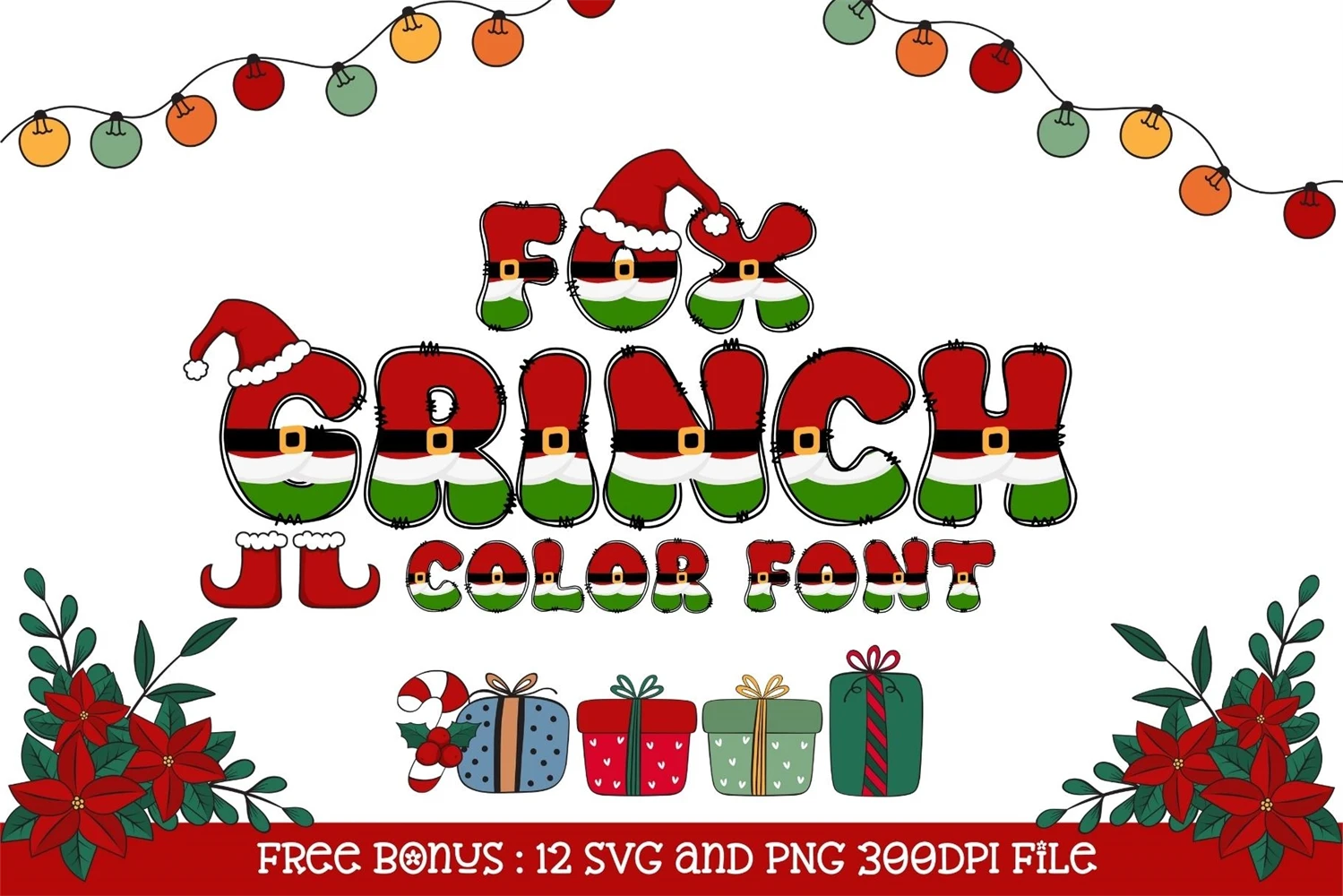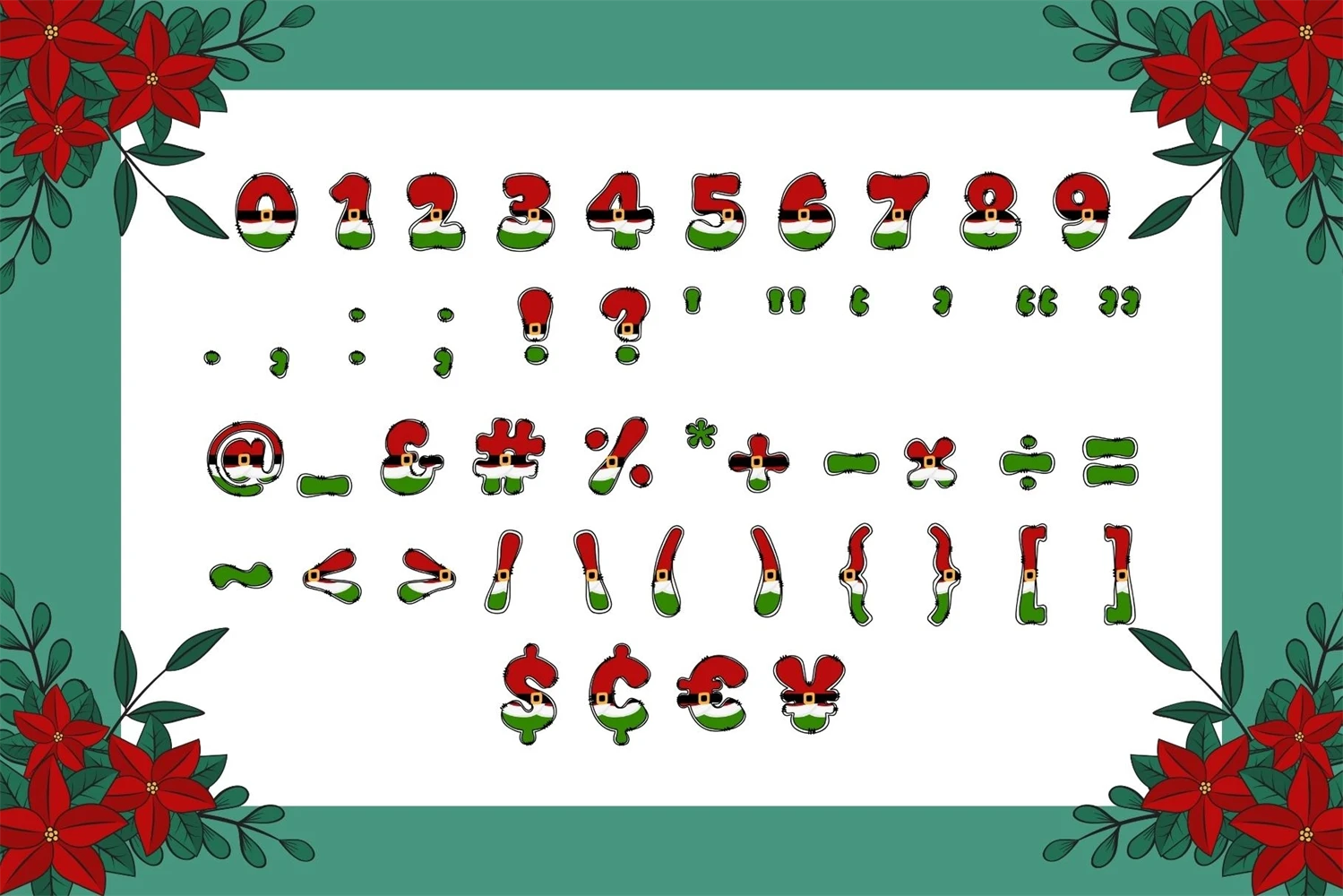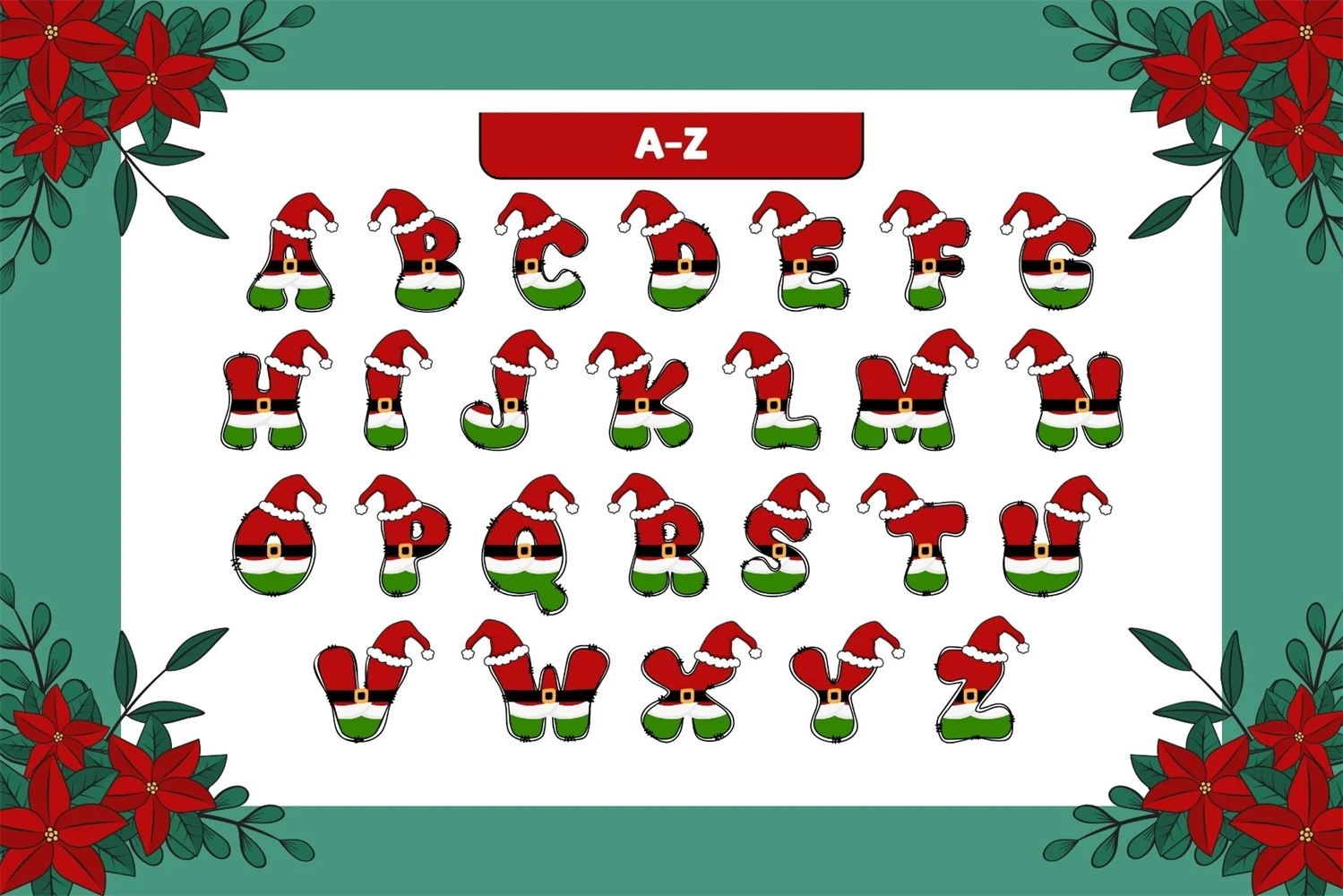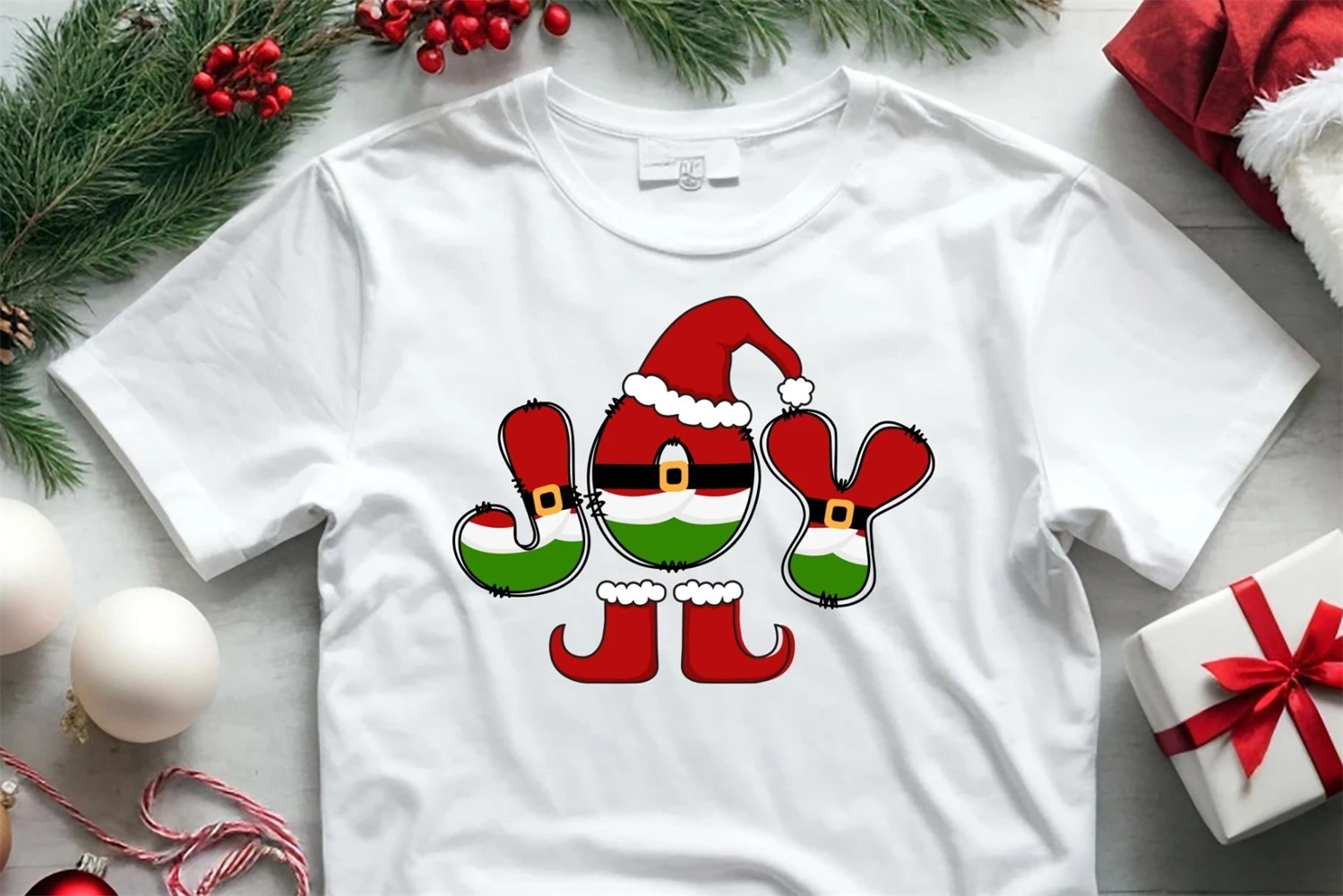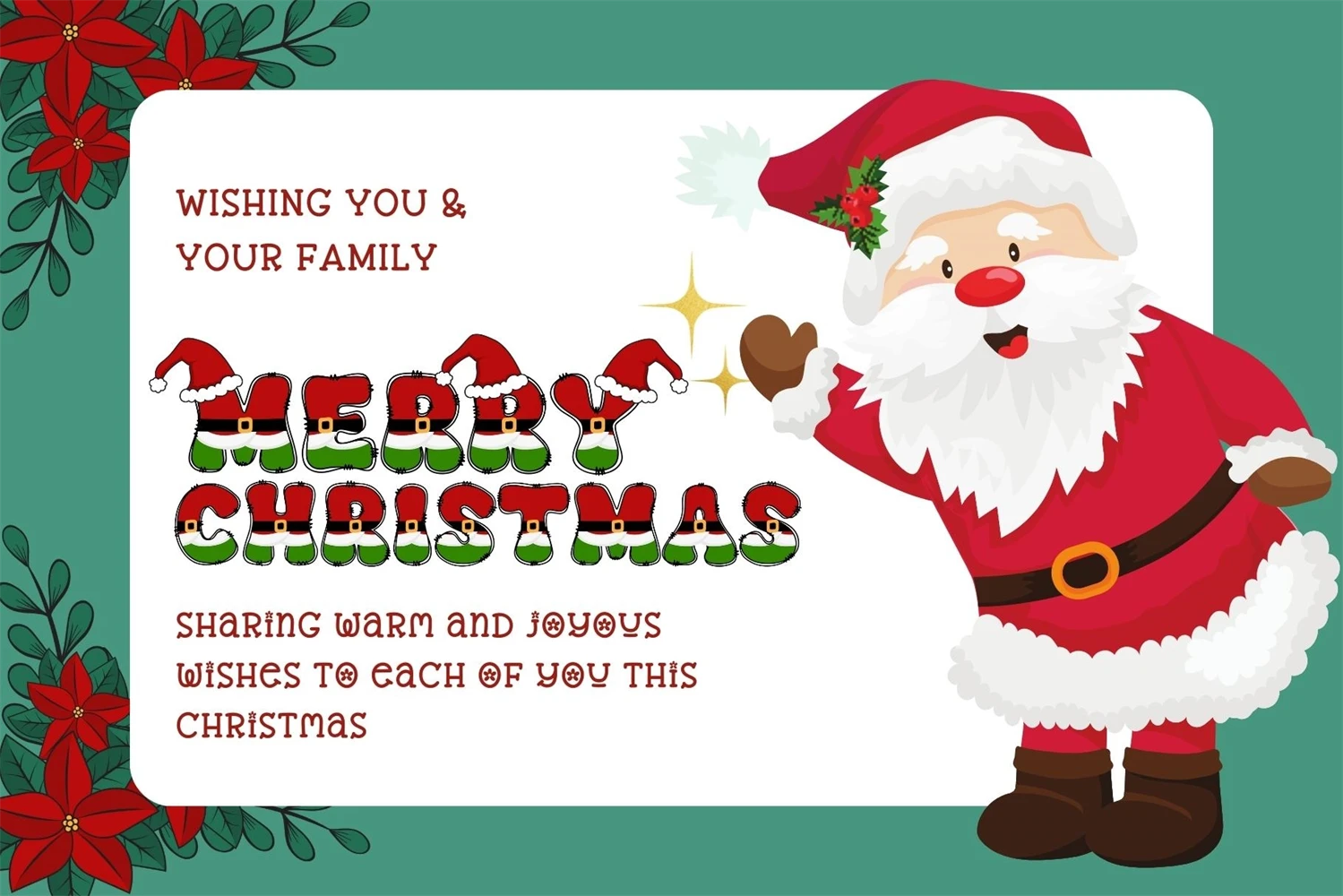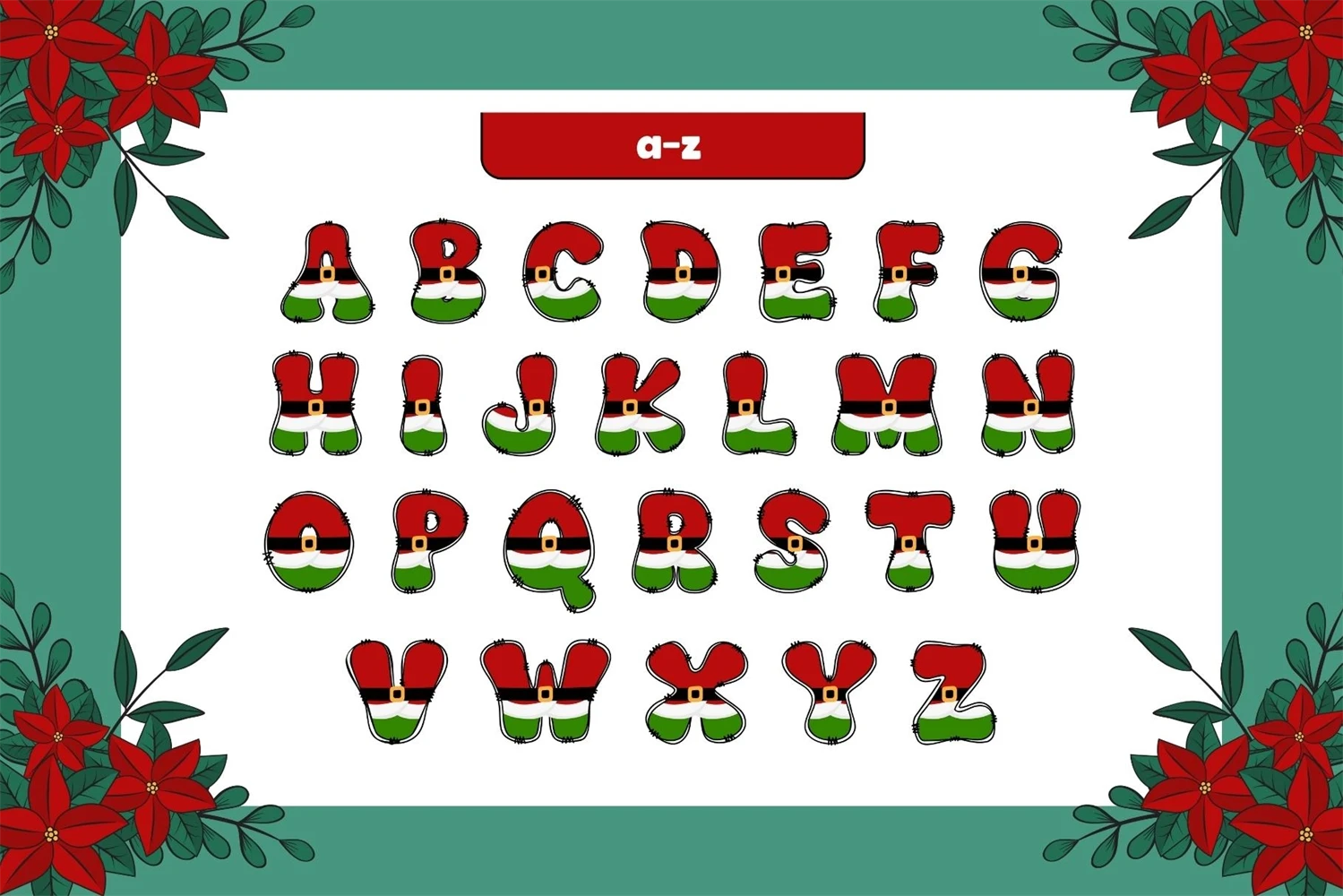
Elevate your holiday designs with the whimsical charm of this Fox Grinch Font. This delightful font is specially crafted to infuse your projects with the joyful spirit of Christmas, Fox Grinch Font is the perfect addition to your holiday-themed creations, whether its greeting cards, posters, banners, invitations, or any design that needs a touch of holiday cheer.